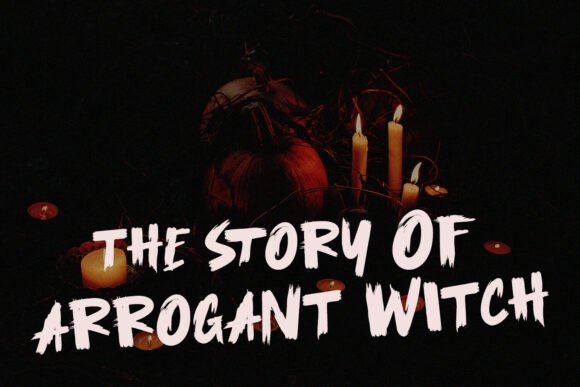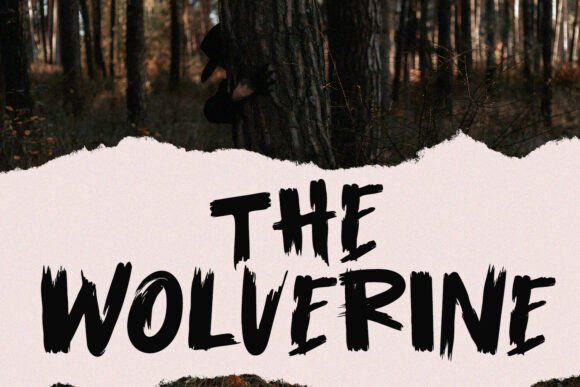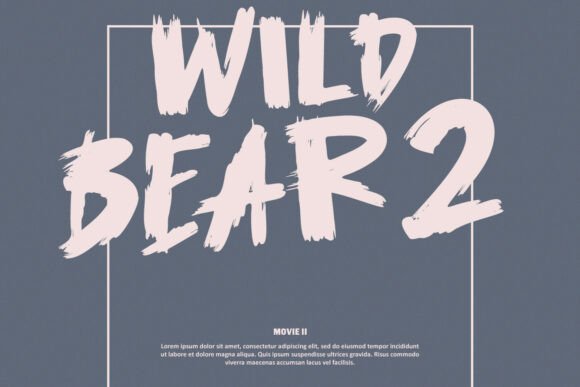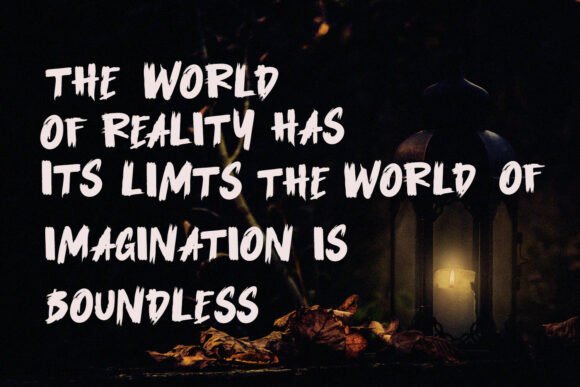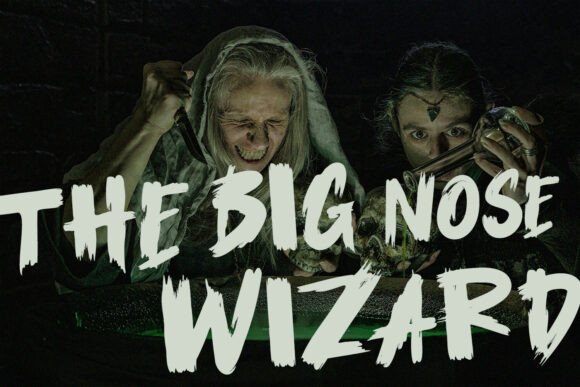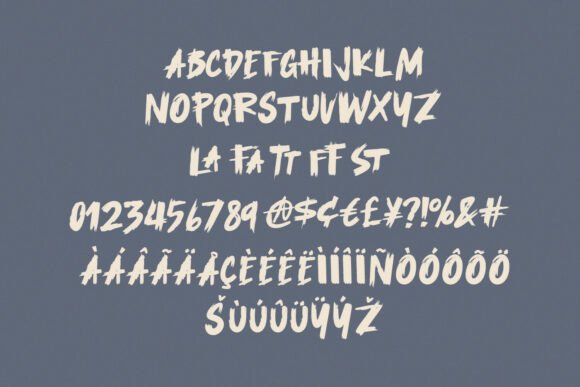
Unleash the Power of Corest Brush Font: Adding a Touch of Adventure and Mystery to Your Designs
Are you looking for a font that can add a sense of adventure and mystery to your designs? Look no further than Corest Brush, a handcrafted display font that’s perfect for making a bold statement. With its authentic dry-brush textures and whimsical yet gritty aesthetic, this font is sure to capture the raw essence of natural brushwork and leave a lasting impression on your audience.
The Perfect Font for Cinematic and Horror-Themed Branding
Corest Brush is a bold, all-caps font that’s specifically designed for impact. Its rugged, handcrafted look makes it perfect for cinematic, horror-themed branding, and dynamic social media graphics. Whether you’re designing a high-octane sports poster, a gritty streetwear brand, or a cinematic title sequence, this font is sure to command attention without ever feeling manufactured.
One of the key features that sets Corest Brush apart from other fonts is its authentic dry-brush textures. These textures give the font a unique, organic look that’s reminiscent of natural brushwork. The bold, all-caps characters are also designed to make a statement, making it perfect for headlines, titles, and other applications where you want to grab the reader’s attention.
A Font that Embraces the Imperfections of Handcrafted Design
Corest Brush is a font that’s all about embracing the imperfections of handcrafted design. Unlike sterile, digital vectors, this font has a human, rebellious feel that’s perfect for creators who want to break away from the norm. The font’s bold weight and expressive terminals add to its dynamic, adventurous feel, making it perfect for designs that need to stand out from the crowd.
Pairing Corest Brush with Other Fonts
One of the best things about Corest Brush is its versatility. It pairs exceptionally well with clean, minimalist sans-serifs, creating a high-contrast look that balances chaos with order. This makes it perfect for designs that need to convey a sense of tension or drama. For example, you could use Corest Brush for a headline or title, and pair it with a clean sans-serif font for the body text.
Use Corest Brush for a Variety of Design Applications
Corest Brush is a font that’s perfect for a wide range of design applications. Here are just a few ideas to get you started:
- Headlines and Titles: Use Corest Brush to create bold, eye-catching headlines and titles that grab the reader’s attention.
- Social Media Graphics: This font is perfect for creating dynamic social media graphics that need to stand out from the crowd.
- Posters and Flyers: Use Corest Brush to create bold, attention-grabbing posters and flyers for events, promotions, and more.
- Branding and Identity: This font is perfect for creating a bold, memorable brand identity that sets you apart from the competition.
Why Choose Corest Brush?
So why choose Corest Brush over other fonts? Here are just a few reasons:
- Unique, Handcrafted Look: Corest Brush has a unique, handcrafted look that’s perfect for designers who want to add a touch of personality to their designs.
- Bold, Attention-Grabbing: This font is designed to make a statement, making it perfect for headlines, titles, and other applications where you want to grab the reader’s attention.
- Versatile: Corest Brush pairs exceptionally well with other fonts, making it perfect for a wide range of design applications.
- Authentic Dry-Brush Textures: The font’s authentic dry-brush textures give it a unique, organic look that’s reminiscent of natural brushwork.
Overall, Corest Brush is a font that’s perfect for designers who want to add a touch of adventure and mystery to their designs. With its bold, attention-grabbing characters and authentic dry-brush textures, this font is sure to make a lasting impression on your audience.